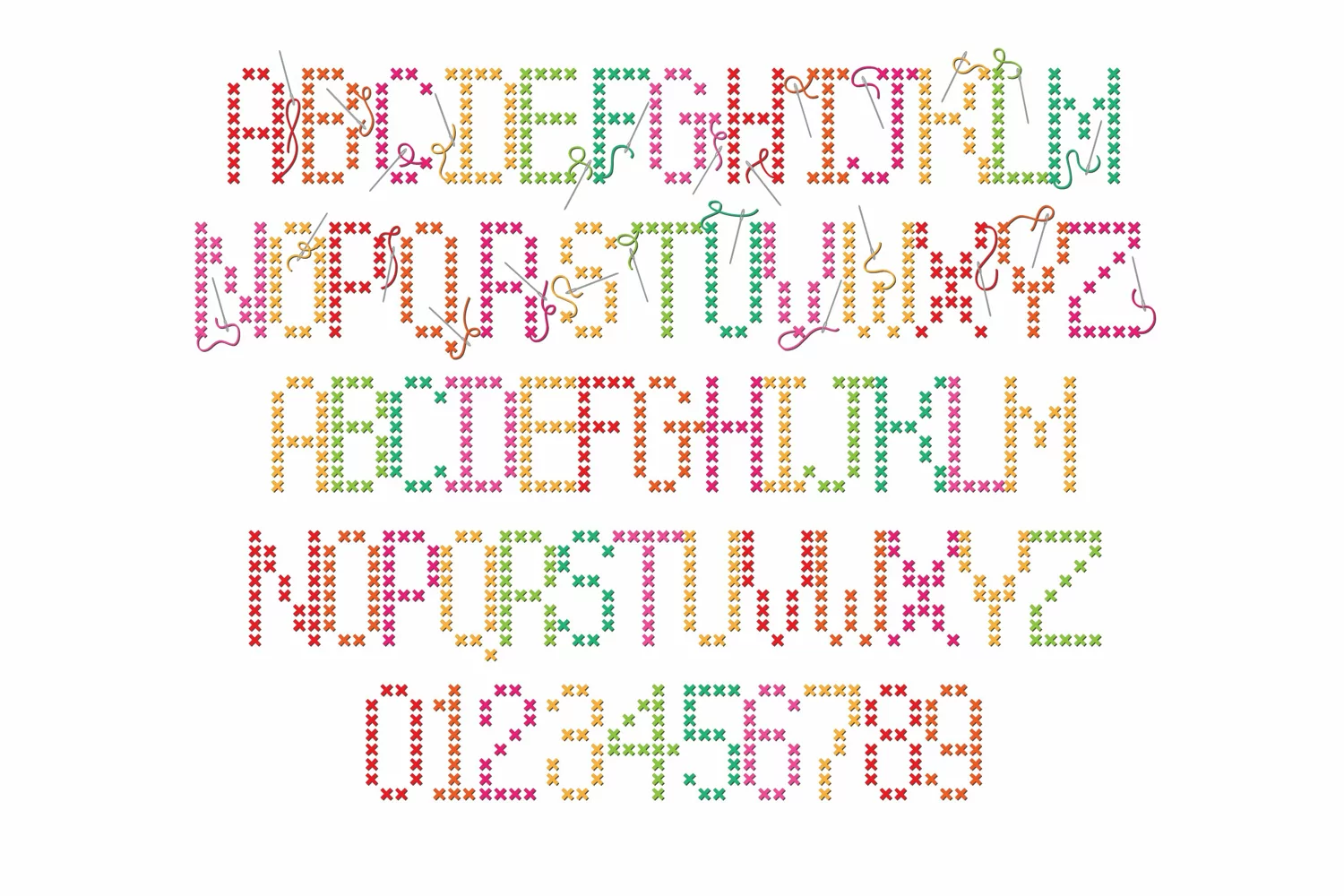
Summer Cross Stitch
This full-color font features a cross stitch style font in a summer color palette. The uppercase includes "needles". There is an alt case with additional colors you can access through your system's character map. This font works best for titles, displays, posters and more. Please note color fonts will show as black in non compatible programs. This font type is compatible with Silhouette Studio.